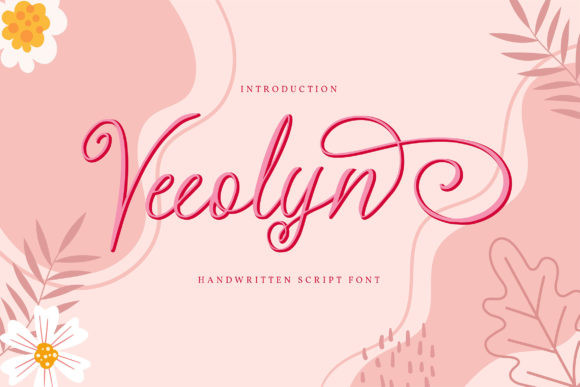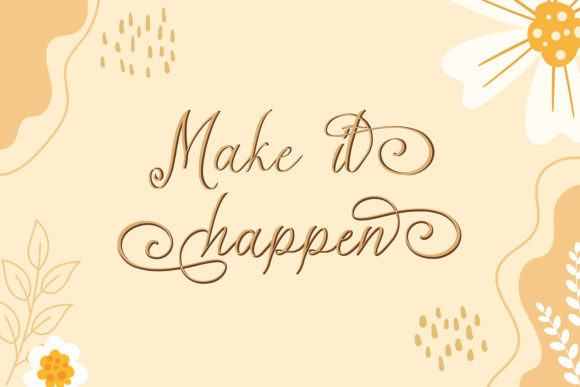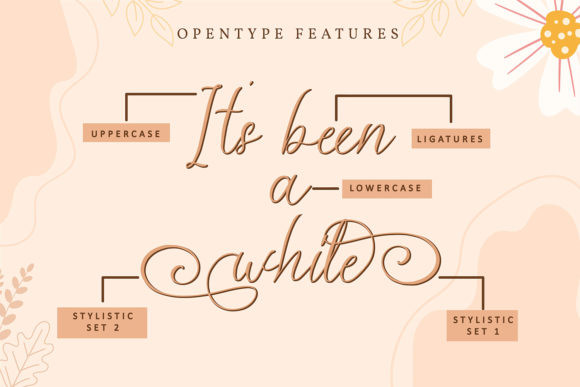
Veeolyn Font
Veeolyn is a romantic and sweet calligraphy typeface with characters that dance along the baseline. It has a casual, yet elegant touch. This font is PUA encoded which means you can access all of the glyphs and swashes with ease!